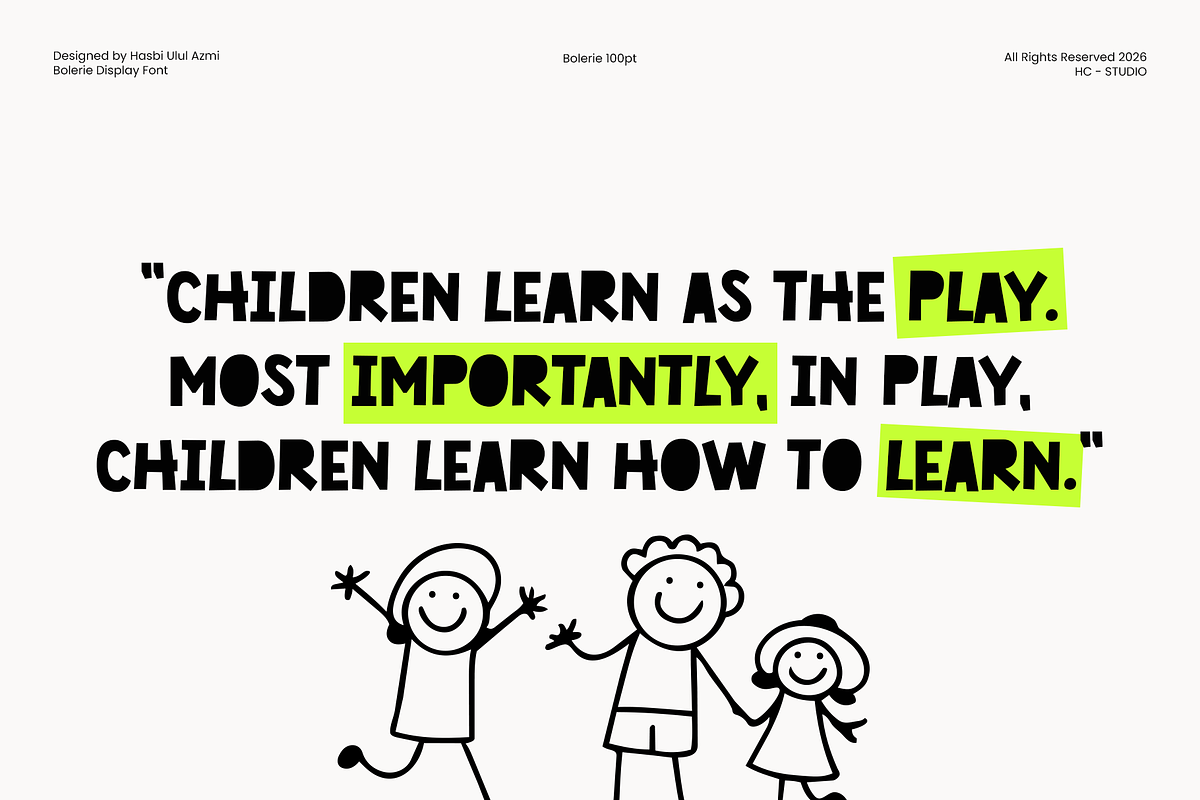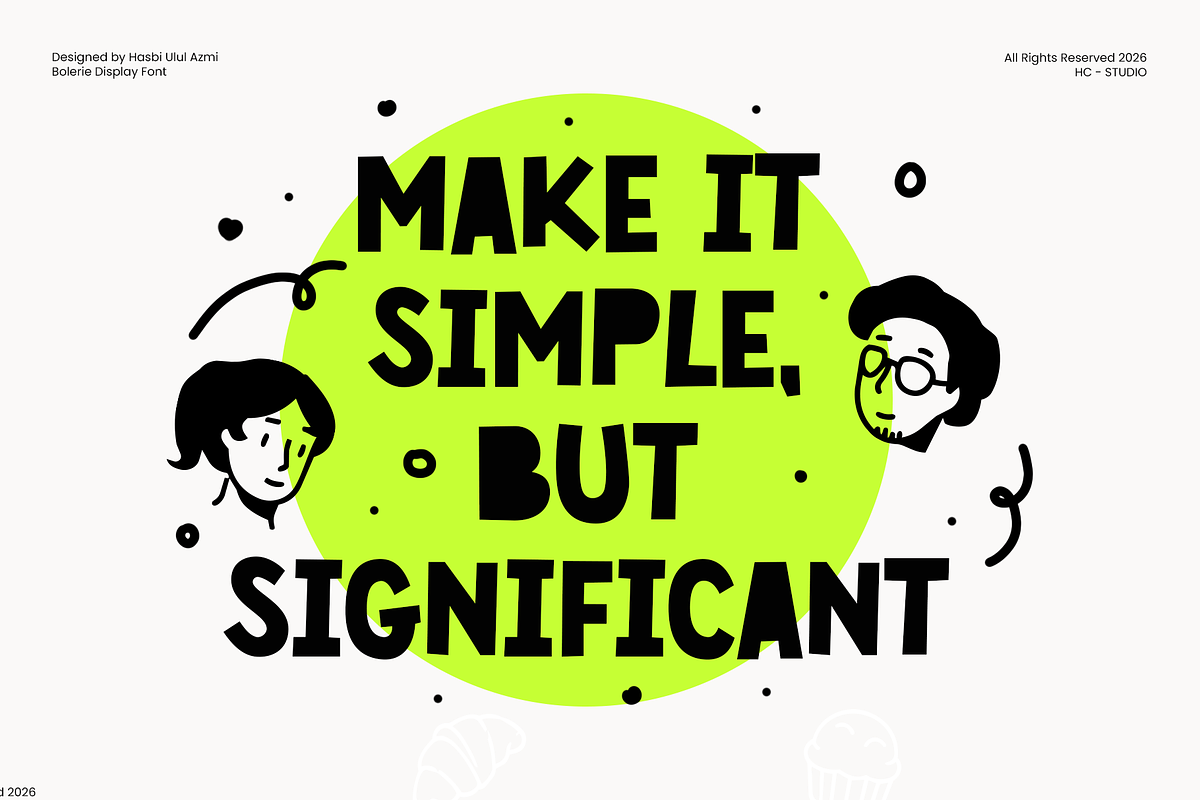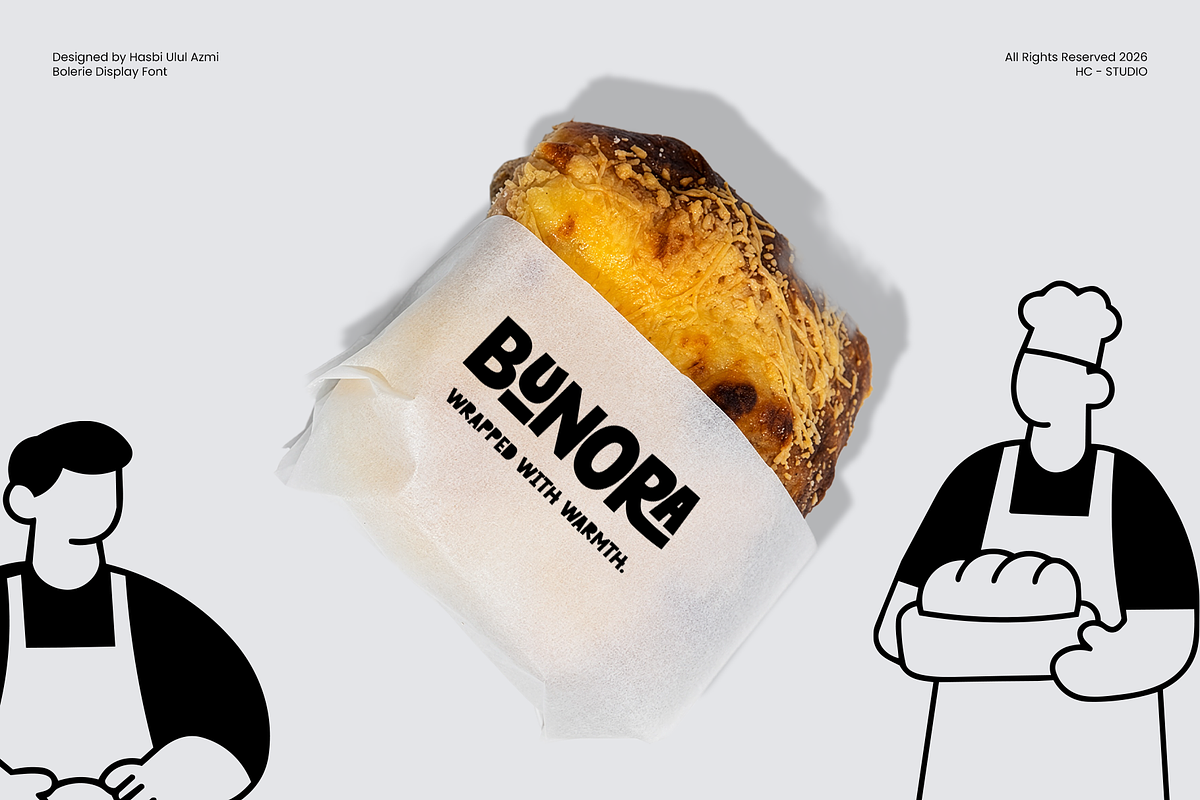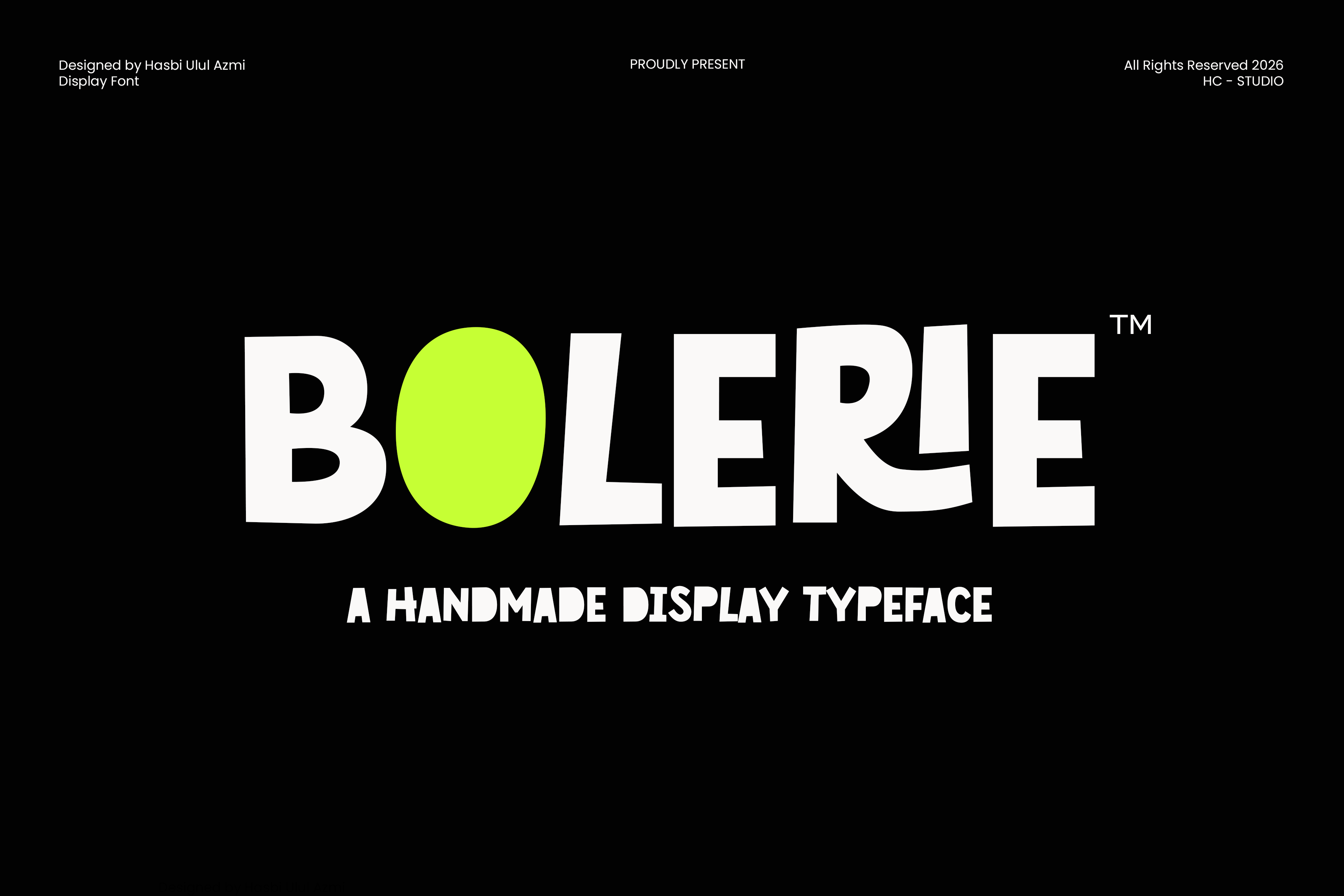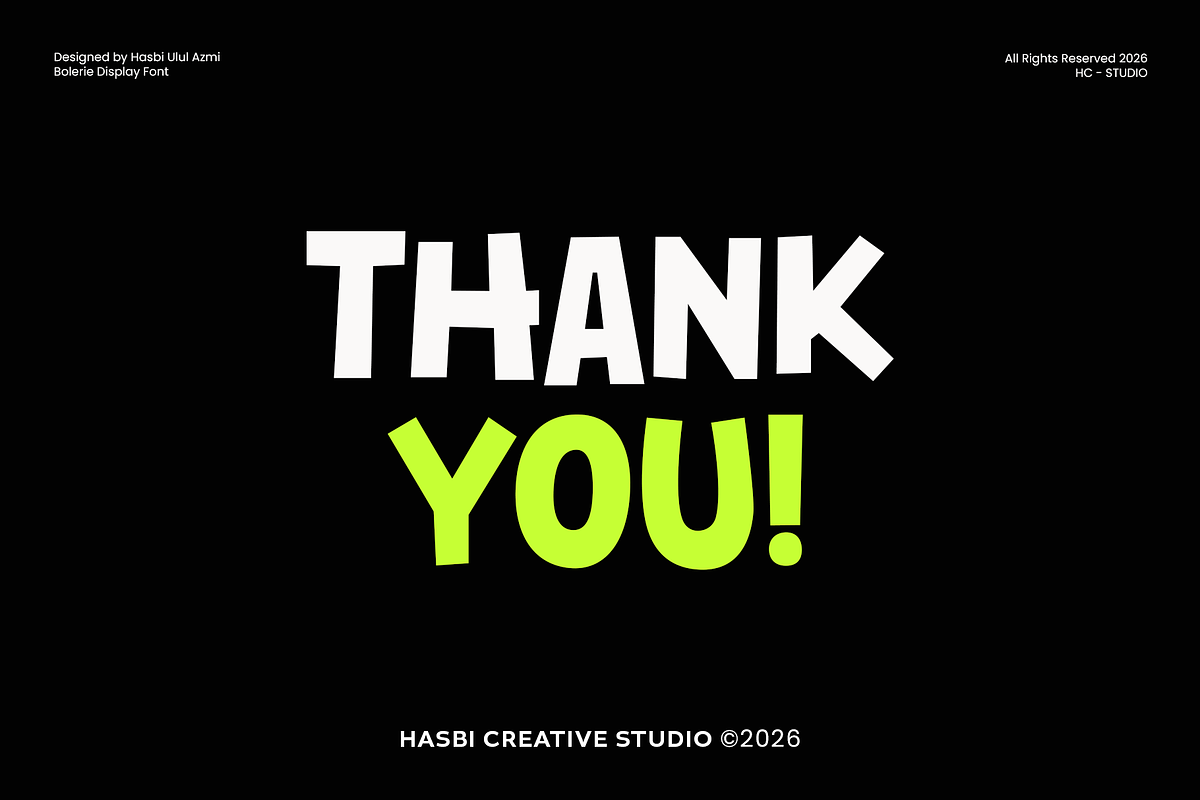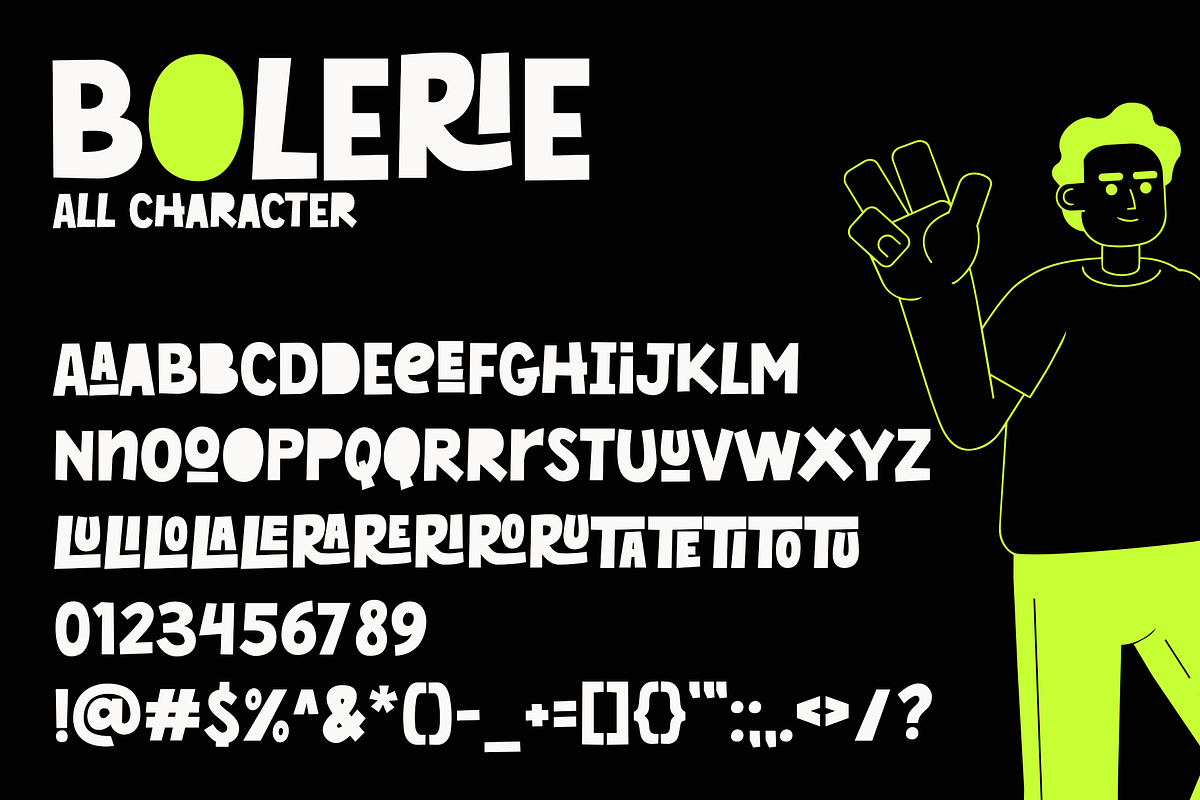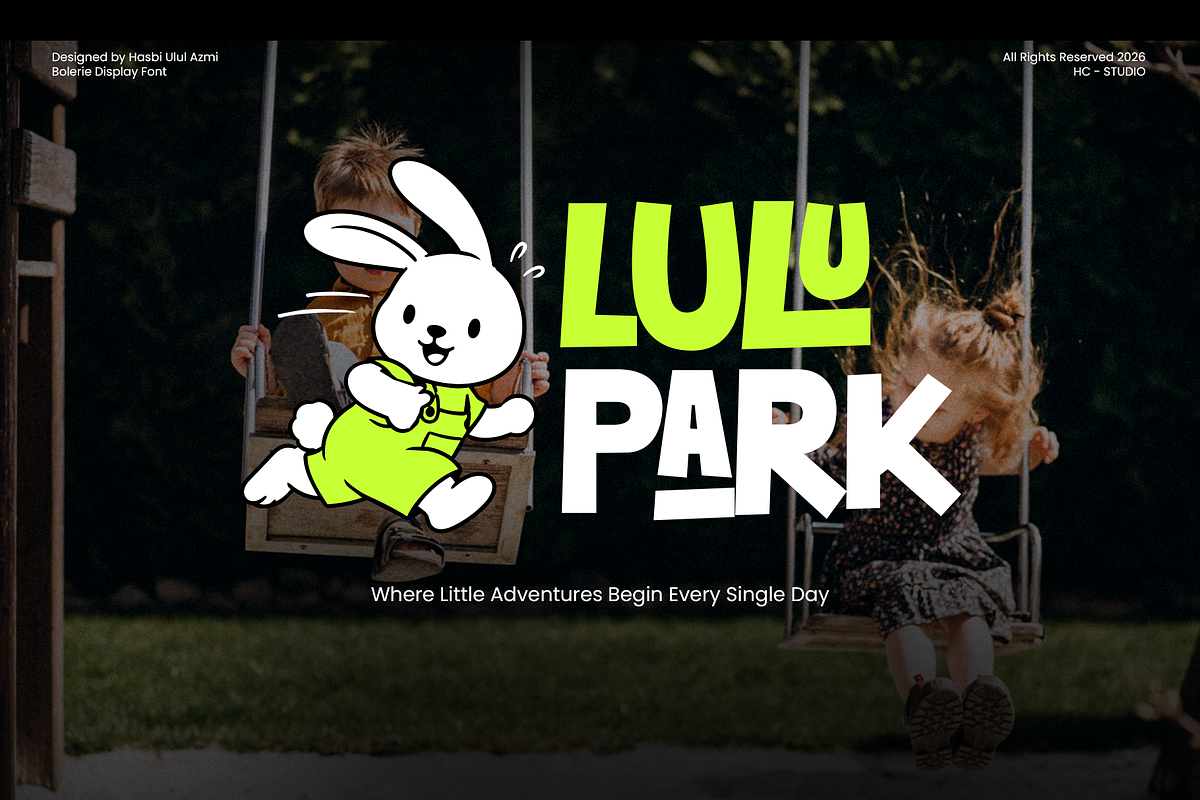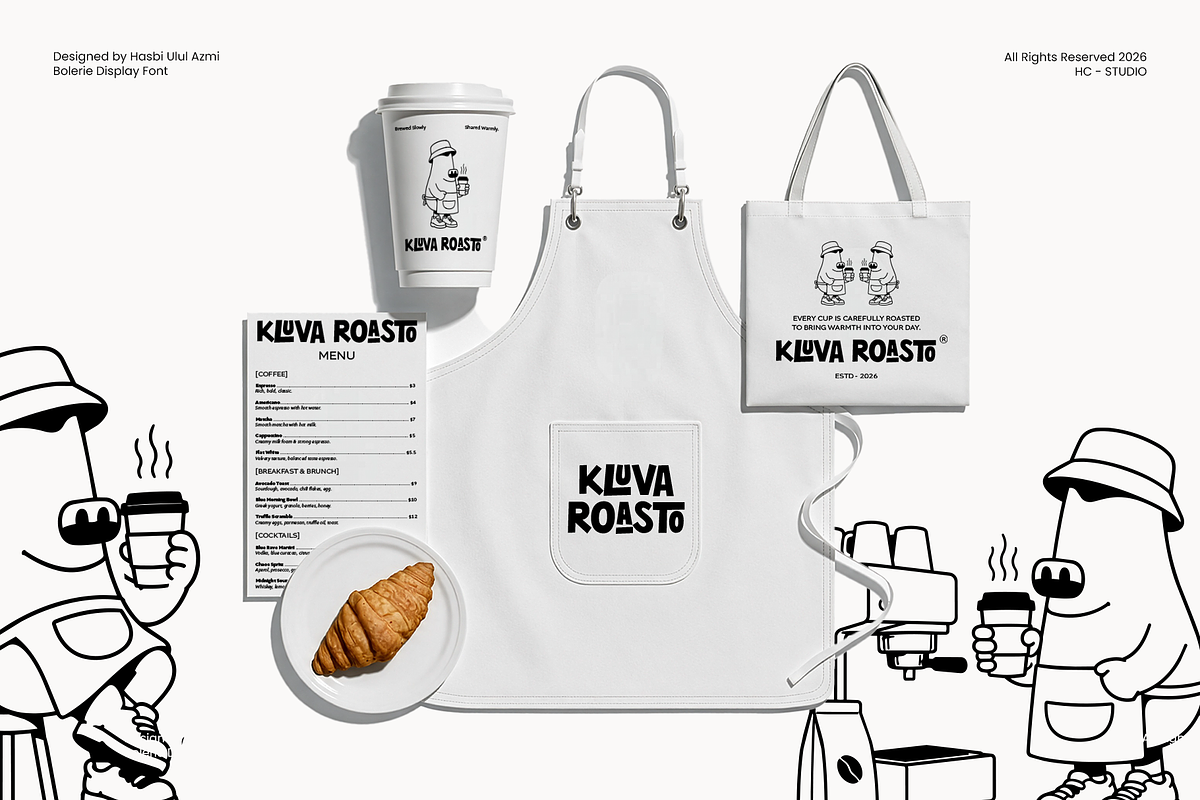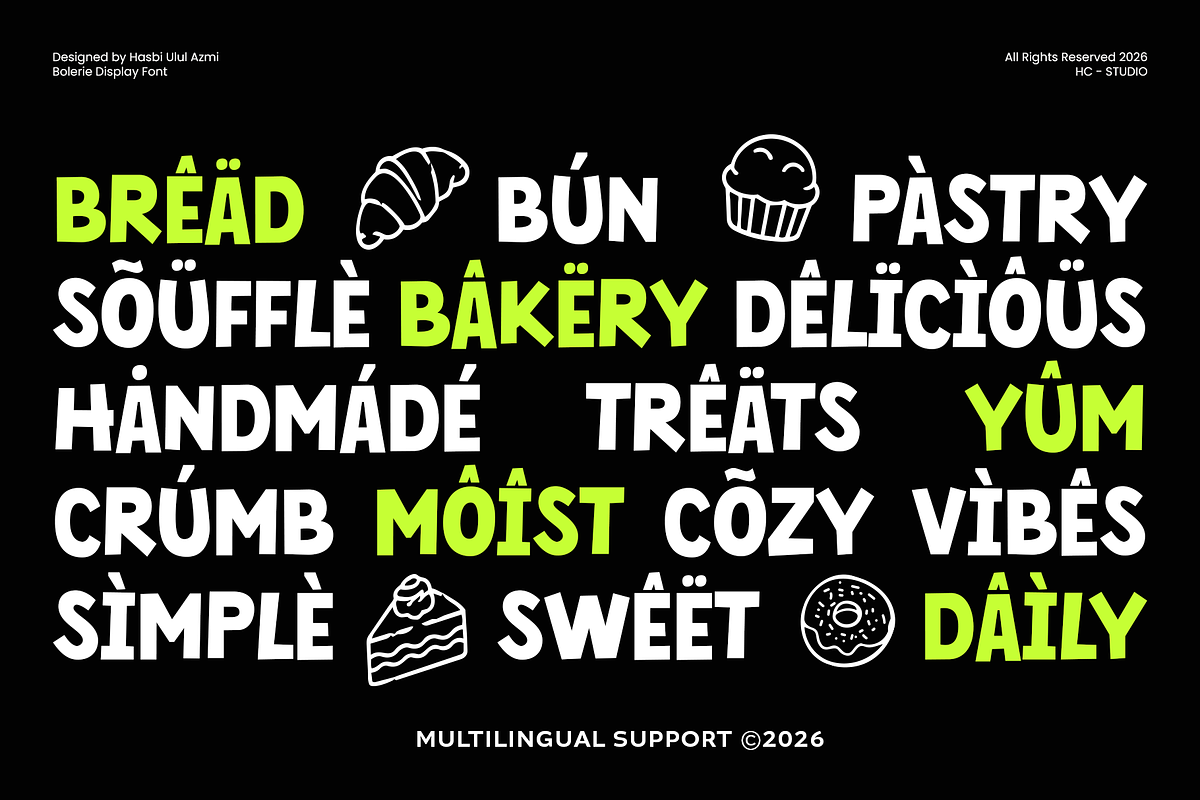
BOLERIE – Bold Handmade Display Font
Bring warmth, personality, and playful energy into every design with BOLERIE, a bold handmade display font inspired by hand-cut lettering, organic shapes, and modern artisan branding.
Designed with slightly irregular curves and chunky letterforms, BOLERIE creates a natural handcrafted look while remaining highly readable. Every character is carefully crafted to deliver a friendly, cheerful, and authentic appearance that works beautifully across both print and digital projects.
Whether you're building a bakery brand, coffee shop identity, children's products, food packaging, or eye-catching social media graphics, BOLERIE helps your typography stand out with confidence and character.
Perfect for designers looking for a playful display font that feels unique, modern, and approachable.
• Bakery Branding
• Coffee Shop Logo
• Café Menu
• Artisan Food Packaging
• Children's Branding
• Kids Playground
• Restaurant Identity
• Logo Design
• Product Packaging
• Organic Product Labels
• Farmers Market Branding
• Snack Packaging
• Handmade Product Branding
• Greeting Cards
• Posters
• Headlines
• Advertising
• Merchandise
• Social Media Graphics
✓ All Caps Letters
✓ Numbers
✓ Punctuation
✓ Multilingual Support
✓ Stylistic Handmade Design
✓ Ligatures